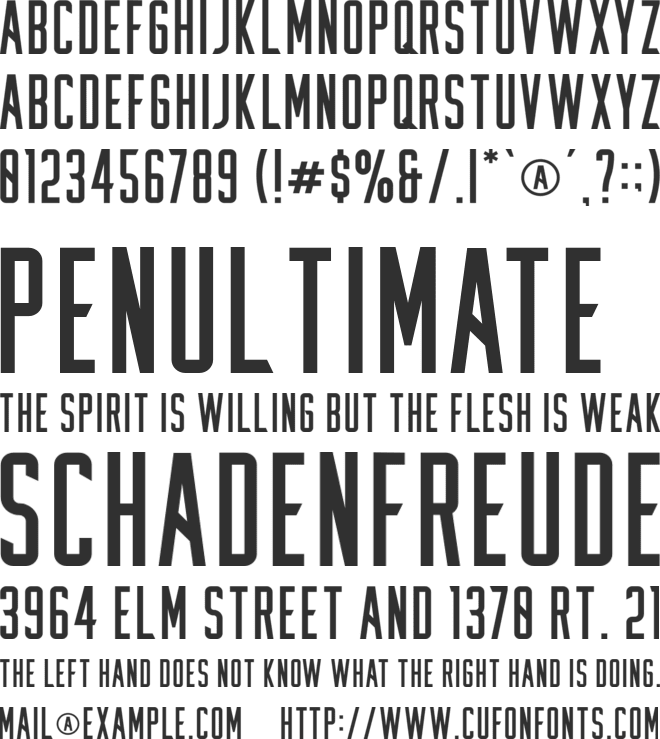
Lakers Font Generator Online
Lakers font generator online. What font was used in los angeles lakers logo. Nba 2k12 lakers 97 98 vs lakers 2012 generation matchup. The lakers logo features the lakers logotype as well as the text los angeles on a basketball. Cool text graphics generator cool text is a free graphics generator for web pages and anywhere else you need an impressive logo without a lot of design work.
Probably its a custom font or maybe they customized another font in order to get this. Basketball font kalde bwong co. The zip archive contains the following files. With the help of web font kit of lakers you can create beautiful websites with great typography.
Nba lakers also known as los angeles lakers font is a fancy old school font designed by eriq p. To download lakers go to our download free section. Free nba lakers font for basketball fans. Esports logo template for basketball video games.
The lettering for the lakers logotype resembles a font named bodoni italic created by gerald giampa. Basic font information. Basketball font kalde bwong co. Nba lakers showtime opentype personal use.
The name of lakers originates from the state of minnesota being the land of 10000 lakes where the team first played. Anyway weve found two fonts very similar font used in the logo. Lakers font lakers font generator. Clippers need a generation of change to overtake lakers in.
We have been searching for a while and we couldnt find the exact font used in the los angeles lakers logo. Basketball logo maker featuring a hoop graphic. Nba lakers showtimeotf. Cool online logo template for a sports team with a hawk mascot.